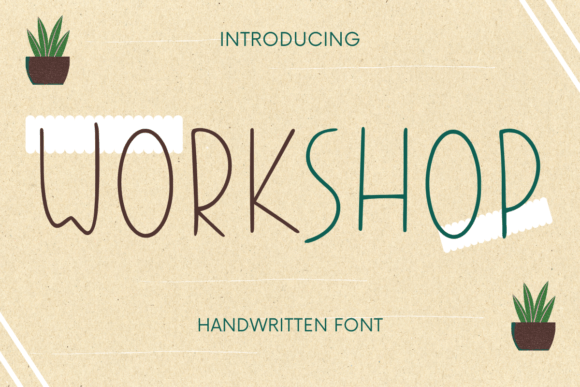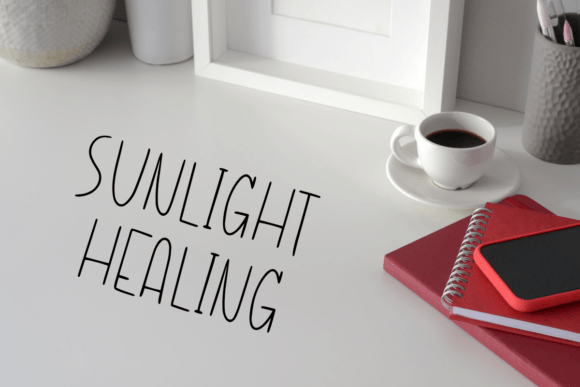
About Workshop Font
Workshop is a simple and thin handwritten font. It’s perfect for digital design, crafting, logo, greeting card, presentation, and many more!